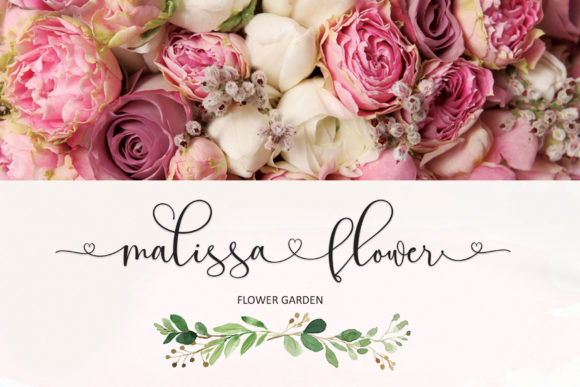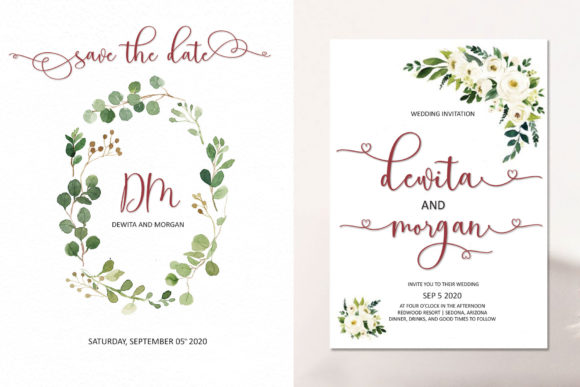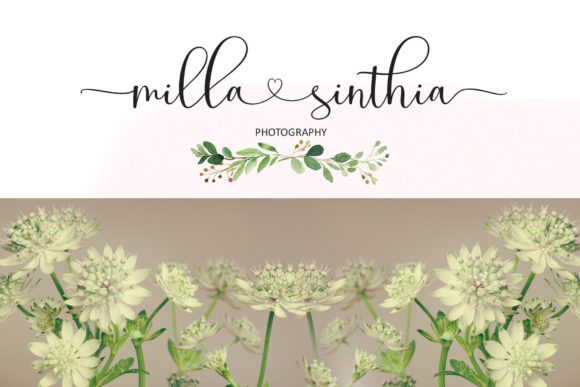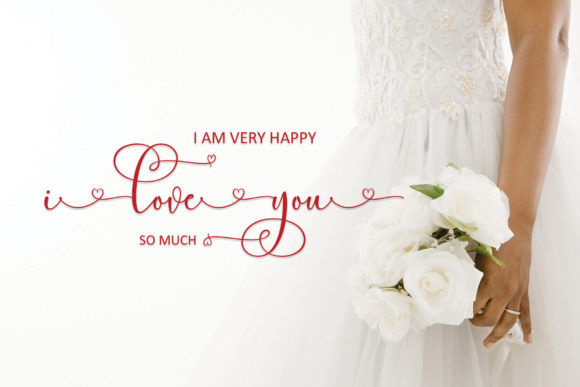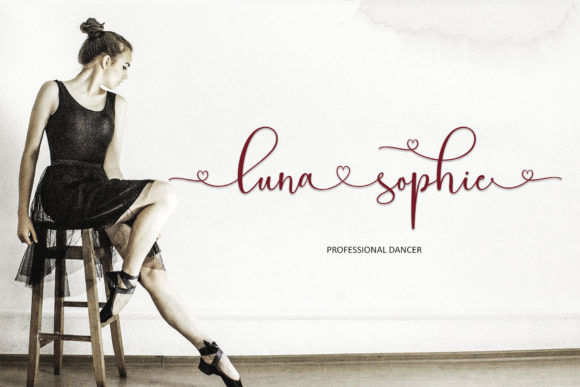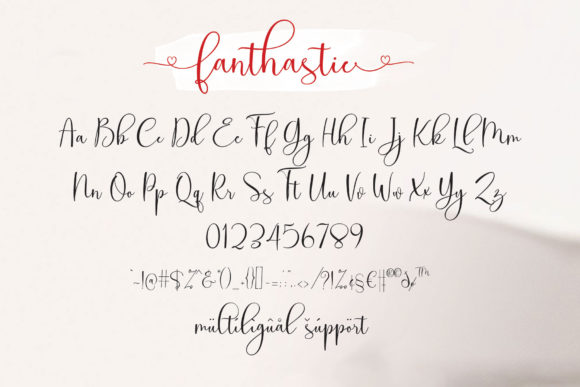
Fanthastic Font: The Sweet and Soft Hand-Lettered Script for Crafting Art
Are you a designer or crafter looking for a font that can add a touch of sweetness and playfulness to your projects? Look no further than Fanthastic Font, a beautiful hand-lettered script that is perfect for creating stunning crafting art. With its rounded characters and gorgeous ligatures, Fanthastic is the ideal choice for anyone who wants to add a decorative touch to their work.
The Characteristics of Fanthastic Font
Fanthastic Font is a sweet and soft hand-lettered script that is characterized by its playful rounded characters. The font comes packed with gorgeous ligatures and alternates, which allow you to add a decorative touch to your work within seconds. The authentic feel of Fanthastic Font makes it perfect for creating a wide range of projects, from wedding invitations and stationary art to social media posts and greeting cards.
Perfect for Crafting Art
Fanthastic Font is specifically designed for crafting art, making it the perfect choice for designers and crafters who want to create beautiful and unique projects. The font’s playful rounded characters and gorgeous ligatures make it ideal for creating stunning crafting art that stands out from the crowd. Whether you’re creating handmade cards, gift tags, or other paper crafts, Fanthastic Font is the perfect choice.
Use Fanthastic Font for Wedding Invitations and Stationary Art
One of the most popular uses for Fanthastic Font is for creating beautiful wedding invitations and stationary art. The font’s elegant and sophisticated feel makes it perfect for creating formal and informal wedding invitations, as well as other stationary art such as gift tags, thank you cards, and more. With Fanthastic Font, you can create stunning wedding stationery that will impress your guests and make your special day even more memorable.
Create Eye-Catching Social Media Posts with Fanthastic Font
In addition to its use in crafting art and wedding stationery, Fanthastic Font is also perfect for creating eye-catching social media posts. The font’s playful and decorative feel makes it ideal for creating engaging and shareable social media graphics, such as quote graphics, motivational posts, and more. With Fanthastic Font, you can add a touch of personality and style to your social media posts and make them stand out from the crowd.
Cute Greeting Cards and More
Fanthastic Font is also perfect for creating cute greeting cards and other paper crafts. The font’s sweet and soft feel makes it ideal for creating handmade cards, gift tags, and other paper crafts for special occasions such as birthdays, holidays, and more. With Fanthastic Font, you can create beautiful and unique greeting cards that will be treasured by your loved ones.
Tips for Using Fanthastic Font
Here are a few tips for using Fanthastic Font in your projects:
- Experiment with different font sizes and colors to add depth and interest to your projects.
- Use Fanthastic Font in combination with other fonts to create a unique and visually appealing look.
- Take advantage of the font’s gorgeous ligatures and alternates to add a decorative touch to your projects.
- Use Fanthastic Font to create a cohesive look across multiple projects, such as a set of wedding stationery or a series of social media posts.
Fanthastic Font is a beautiful and versatile hand-lettered script that is perfect for creating stunning crafting art, wedding invitations, stationary art, social media posts, and cute greeting cards. With its playful rounded characters, gorgeous ligatures, and authentic feel, Fanthastic Font is the ideal choice for designers and crafters who want to add a touch of sweetness and playfulness to their projects. So why wait? Download Fanthastic Font today and start creating your own beautiful and unique projects!